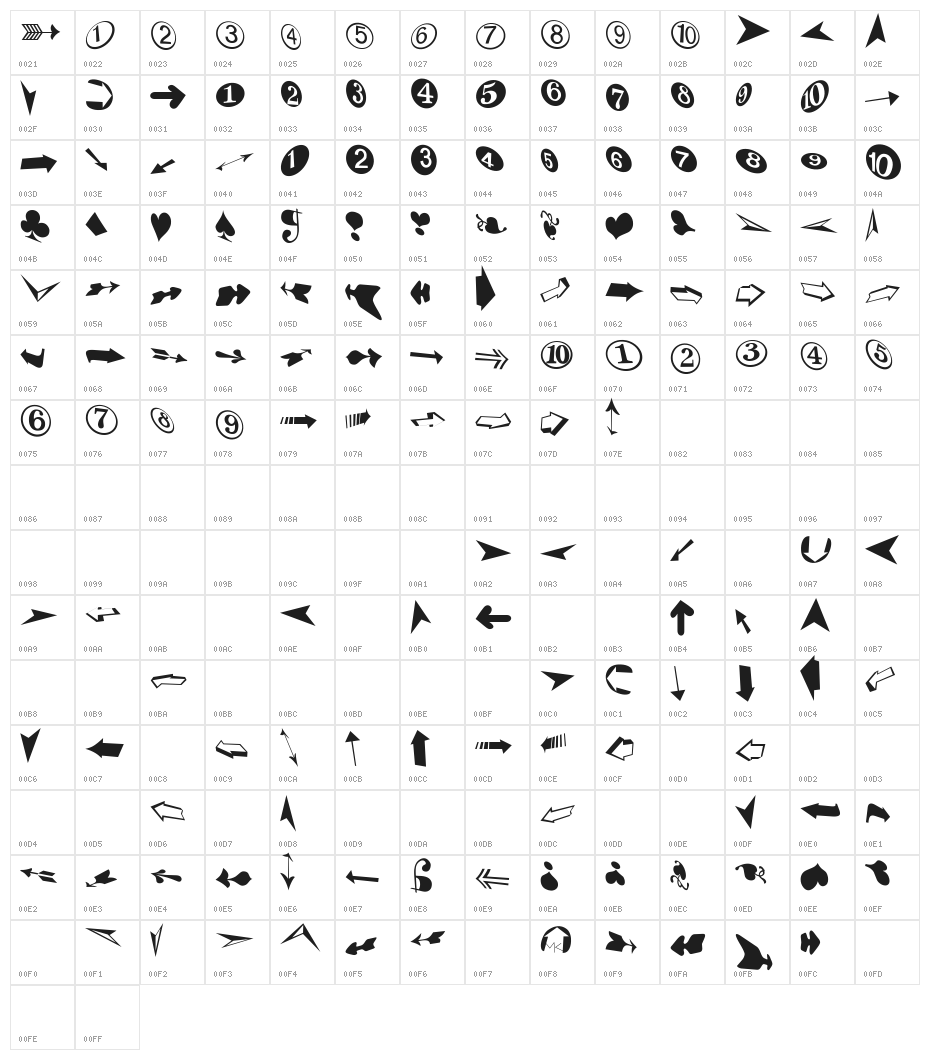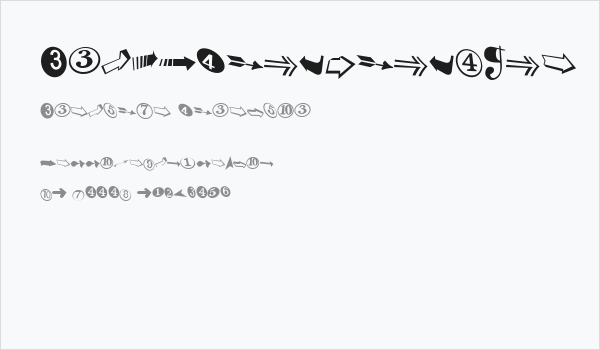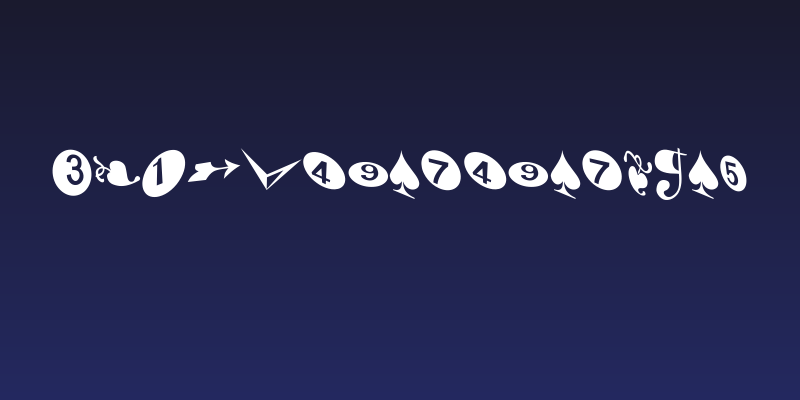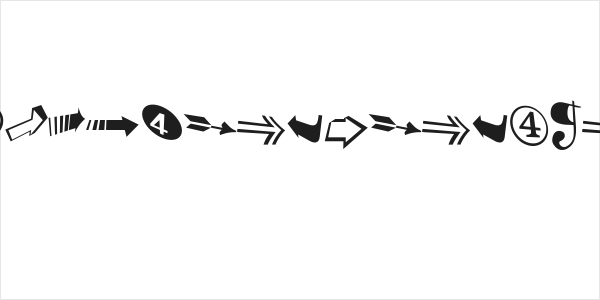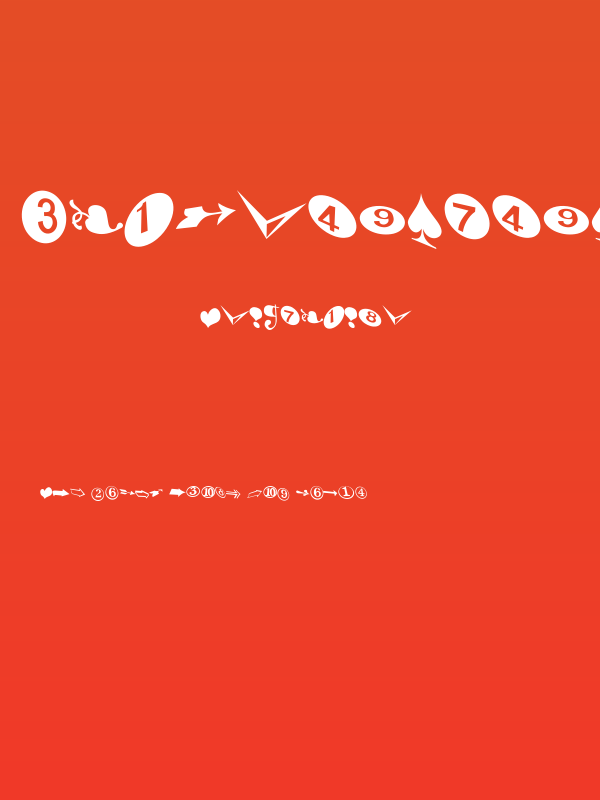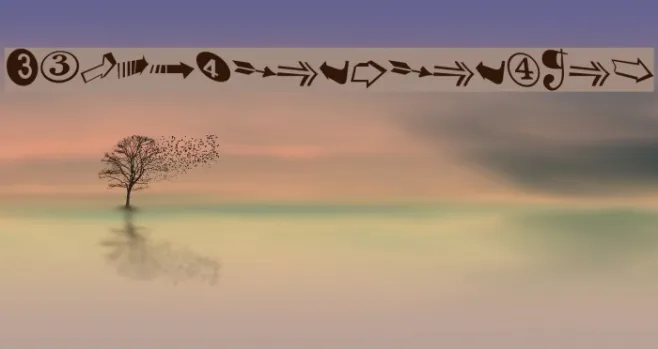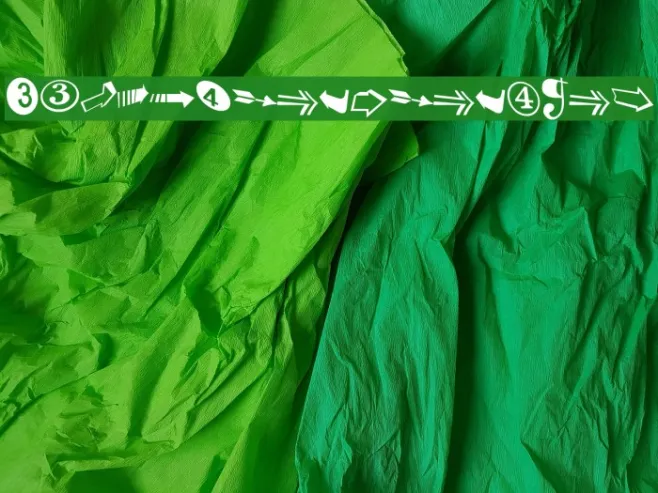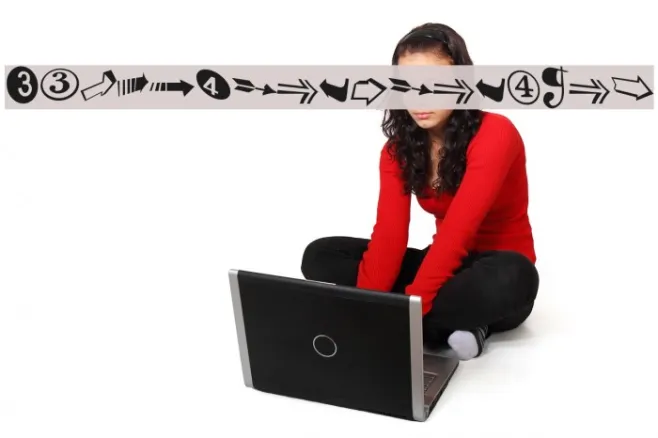
CrazyDingdingsOne Font
CrazyDingdingsOne Description
This collection features a playful and eclectic mix of symbols and numbers, each encased in bold, circular shapes. The design includes a variety of arrows, card suits, and whimsical icons, all presented in a bold, graphic style. The numbers are prominently displayed within solid black circles, creating a striking contrast. The overall aesthetic is dynamic and energetic, with a sense of movement conveyed through the use of directional arrows and varied iconography. This set is ideal for projects that require a fun and unconventional visual element.
| Proposed Projects | Ideal for playful graphic designs, children's educational materials, or creative branding projects. |